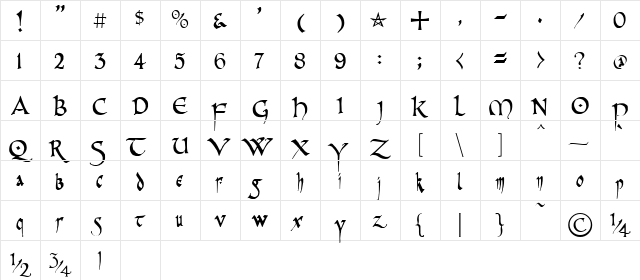
PR Celtic Narrow Normal
Design Context for PR Celtic Narrow Typeface
PR Celtic Narrow is a composed and adaptable typeface that performs quietly and consistently across a wide range of design contexts. The condensed width makes it efficient for tight spaces without sacrificing legibility.